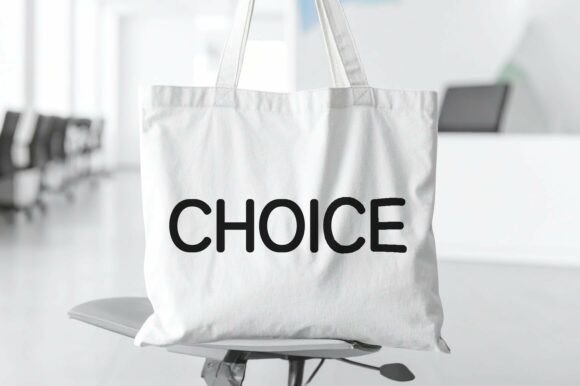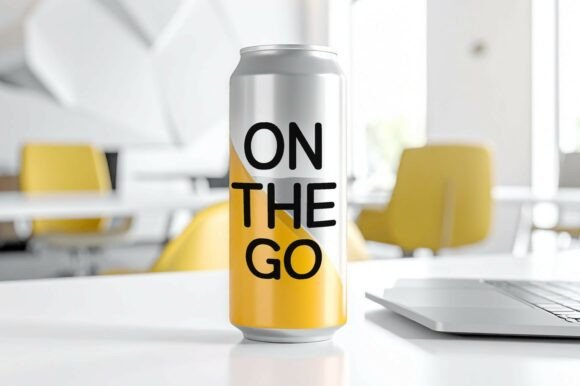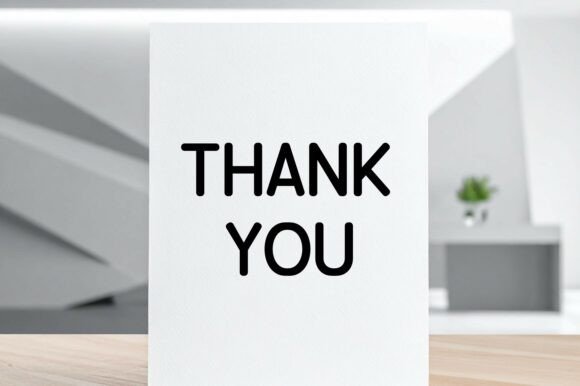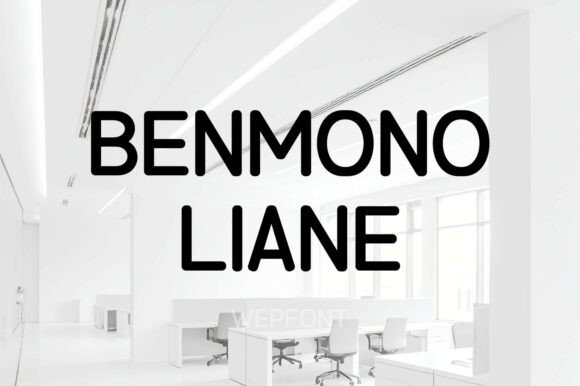
Discover the Elegance of BENMONO LIANE: A Modern Sans-Serif Display Font
I’ll never forget the struggle I faced while working on a branding project for a luxury fashion client. The goal was to create a sophisticated and modern visual identity that would appeal to a high-end audience. However, finding the perfect font that exuded elegance and refinement proved to be a daunting task. That was until I stumbled upon BENMONO LIANE, a game-changing sans-serif display font that redefined my design approach.
What Makes BENMONO LIANE Stand Out?
BENMONO LIANE is a masterpiece of modern typography, boasting minimalist elegance and unparalleled readability. Its pristine lines and harmonious dimensions make it an ideal choice for a wide range of design applications, from branding and editorial designs to digital interfaces, packaging, and advertising.
Here’s what I love about BENMONO LIANE:
- ✨ Timeless allure: BENMONO LIANE brings a touch of sophistication to any design project, making it perfect for luxury brands and high-end clients.
- ✅ Unrivaled readability: The font’s clean lines and harmonious dimensions ensure that your message is conveyed clearly, even at smaller font sizes.
- 💡 Versatility: BENMONO LIANE excels in various design applications, from digital interfaces to print materials.
And here are some minor quirks to consider:
- 🤔 Limited use in body text: While BENMONO LIANE is perfect for headlines and titles, it may not be the best choice for lengthy body text due to its display font nature.
- ⚠️ Requires careful kerning: As with any font, careful attention to kerning is necessary to ensure optimal readability and aesthetics.
The Story Behind BENMONO LIANE
BENMONO LIANE was designed with the goal of creating a modern and sophisticated sans-serif display font that would meet the needs of luxury brands and high-end clients. The design process involved a deep exploration of typographic principles and a passion for creating a font that would exude elegance and refinement.
| Font Name | Benmono Liane Font |
| Author | wep – Wahyu Eka Prasetya |
| What is BENMONO LIANE? | BENMONO LIANE is a modern sans-serif display font designed for luxury brands and high-end clients. |
| What design applications is BENMONO LIANE suitable for? | BENMONO LIANE excels in various design applications, including branding, editorial designs, digital interfaces, packaging, and advertising. |
| Can I use BENMONO LIANE for body text? | While BENMONO LIANE is perfect for headlines and titles, it may not be the best choice for lengthy body text due to its display font nature. |
| Is BENMONO LIANE easy to read? | Yes, BENMONO LIANE boasts unparalleled readability due to its clean lines and harmonious dimensions. |